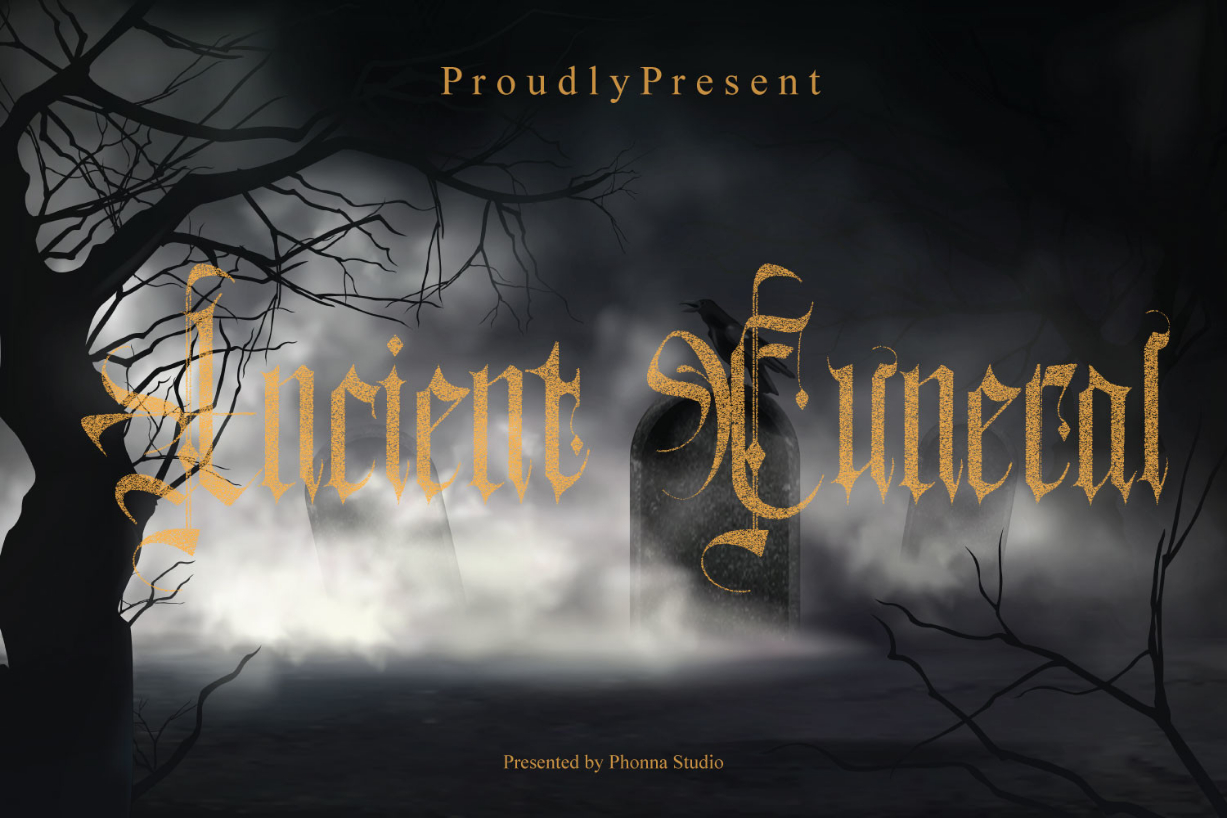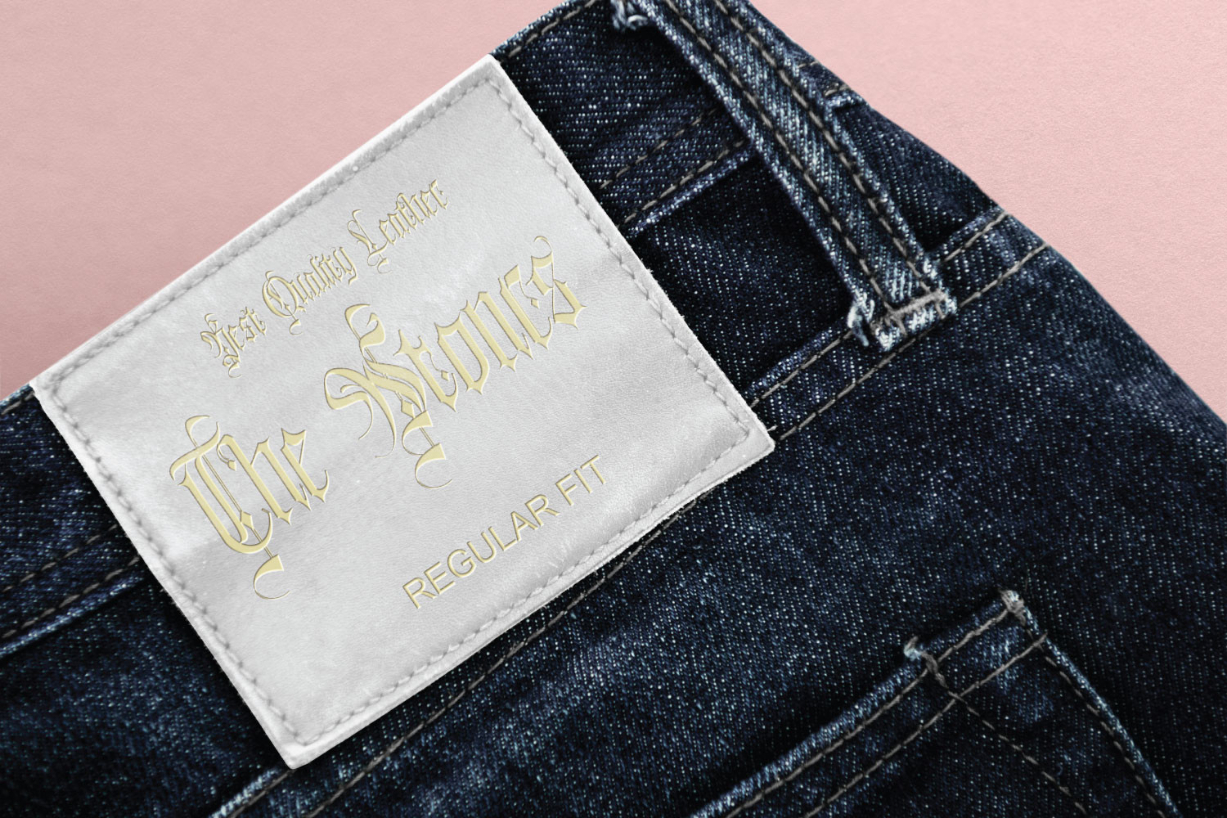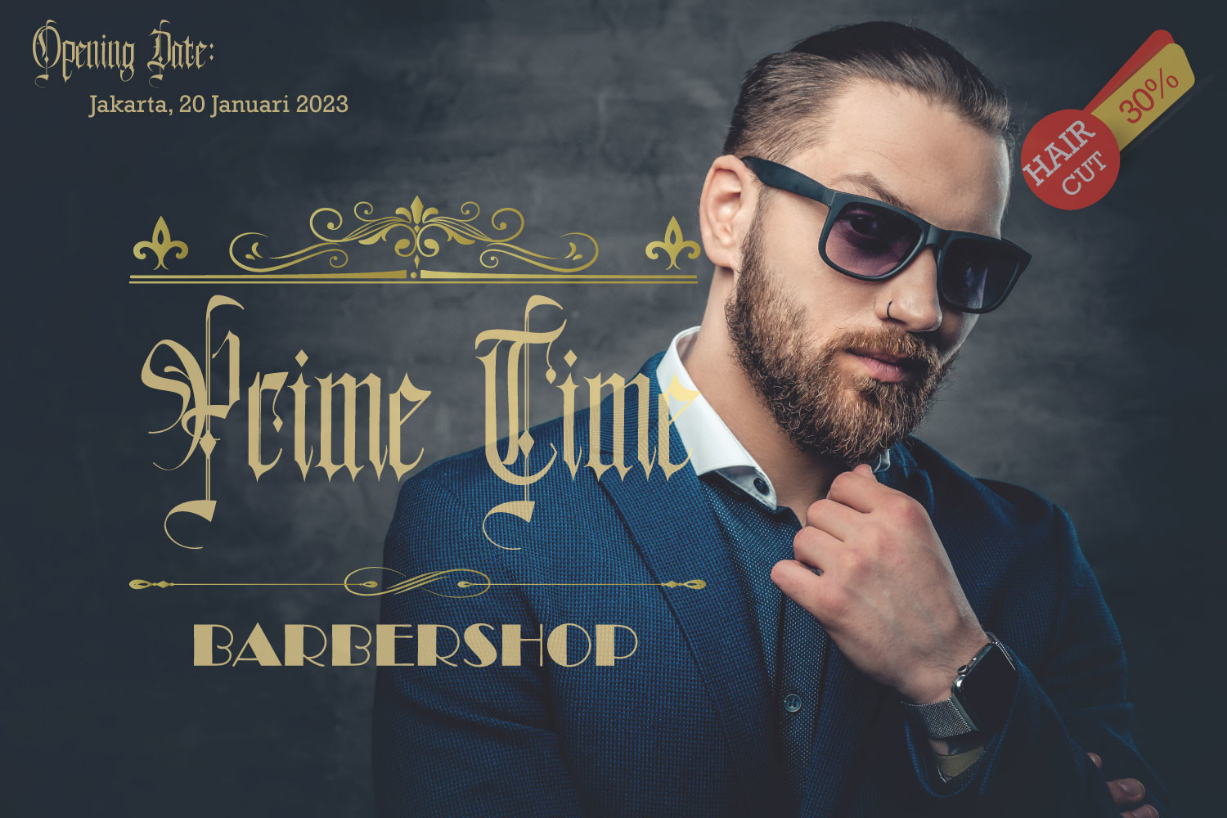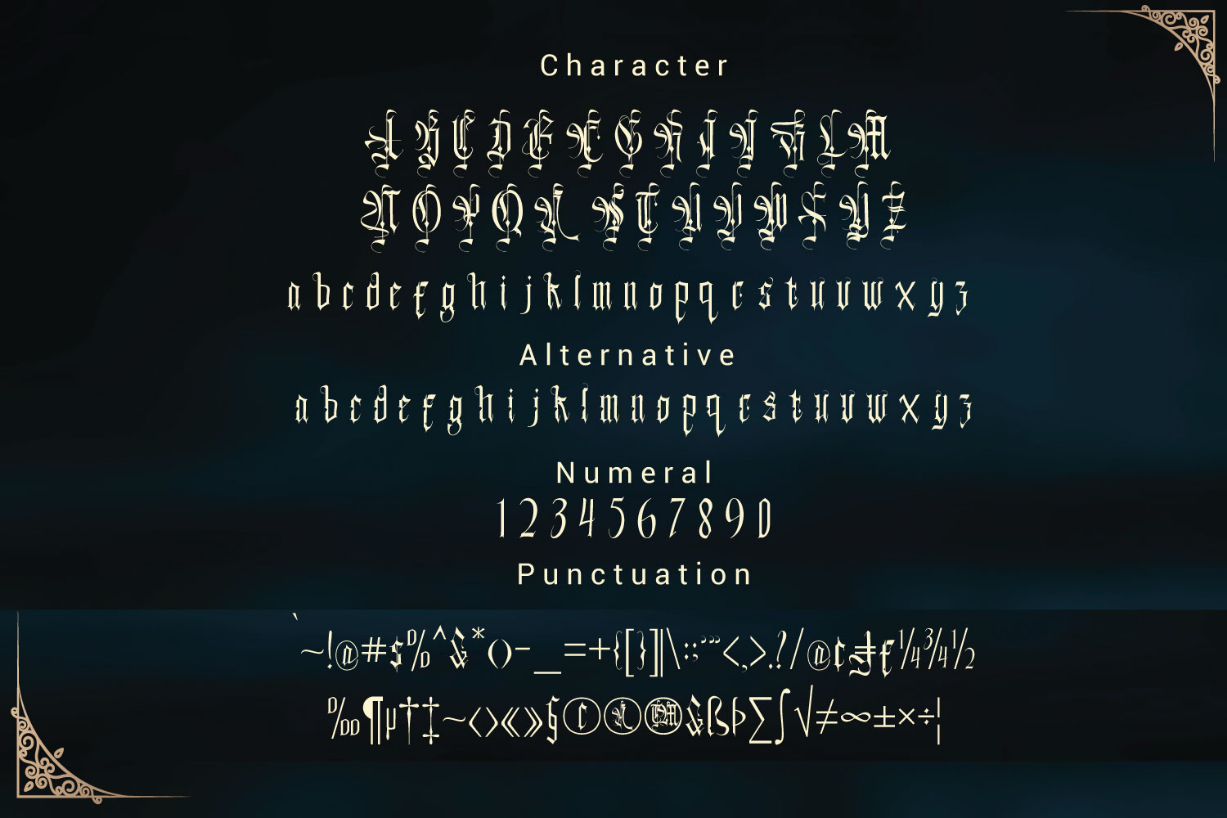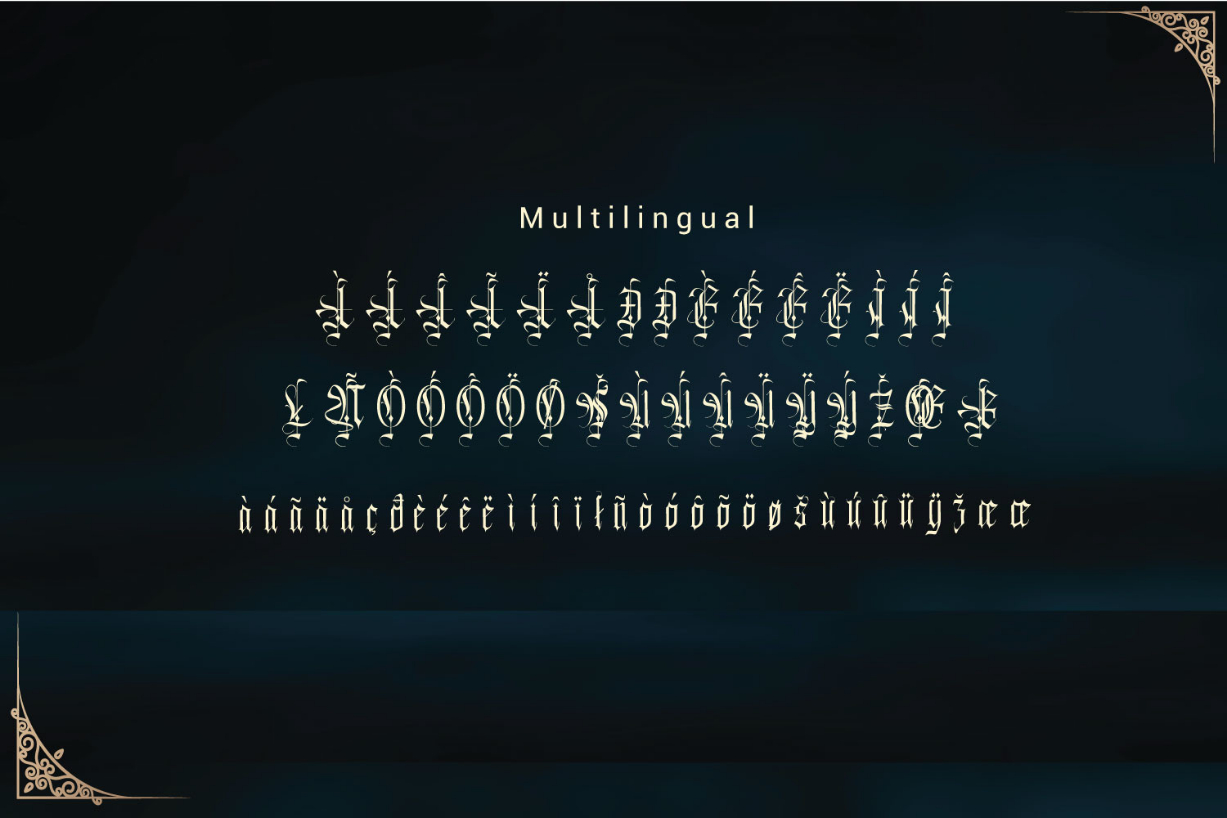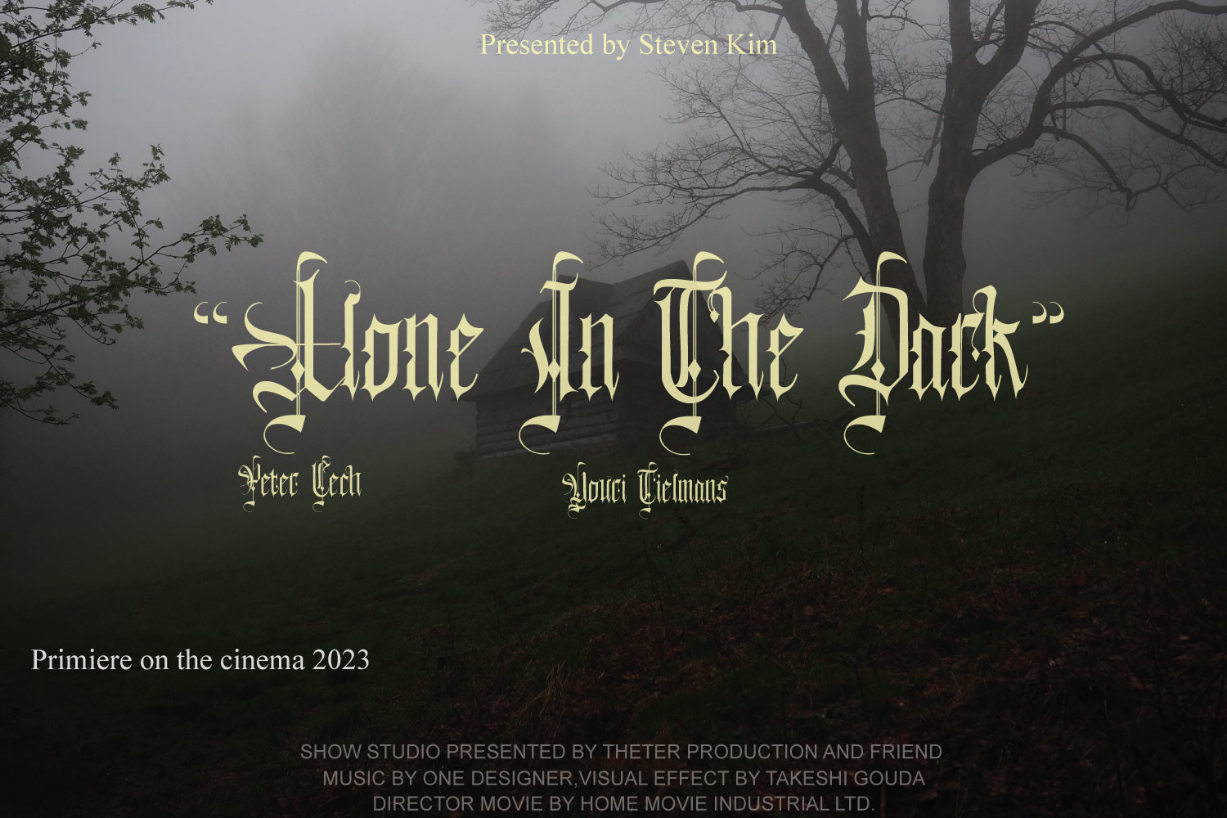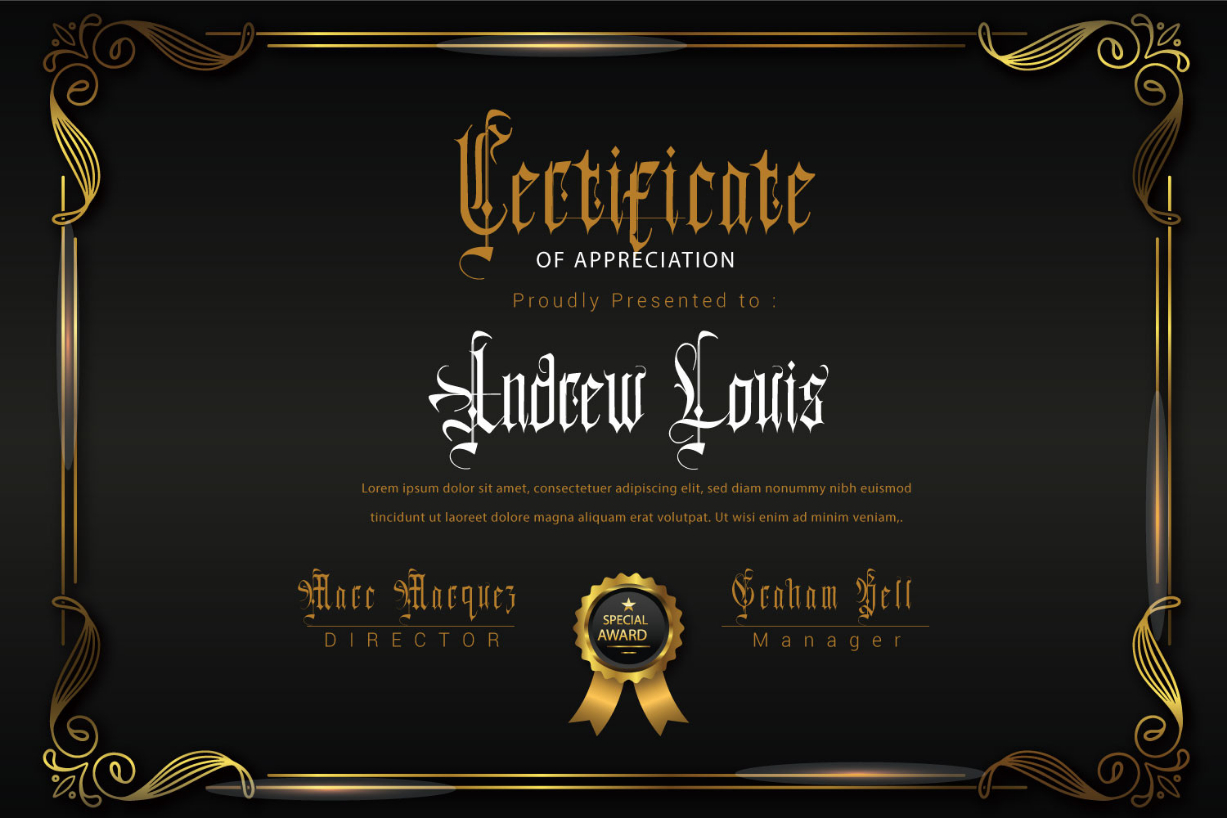
Ancient Funeral Font
About Ancient Funeral Font
Ancient Funeral is a stylish blackletter typeface. Its unique, Gothic style is suitable for all your design projects that require daring typography.